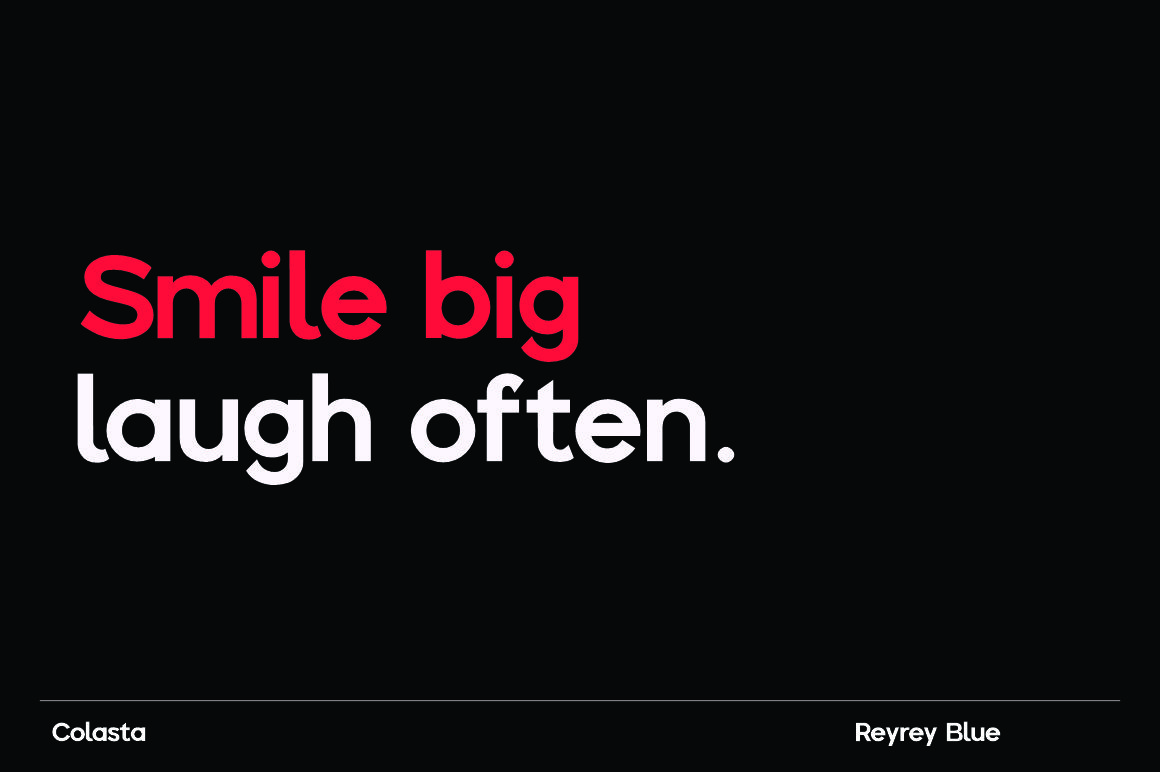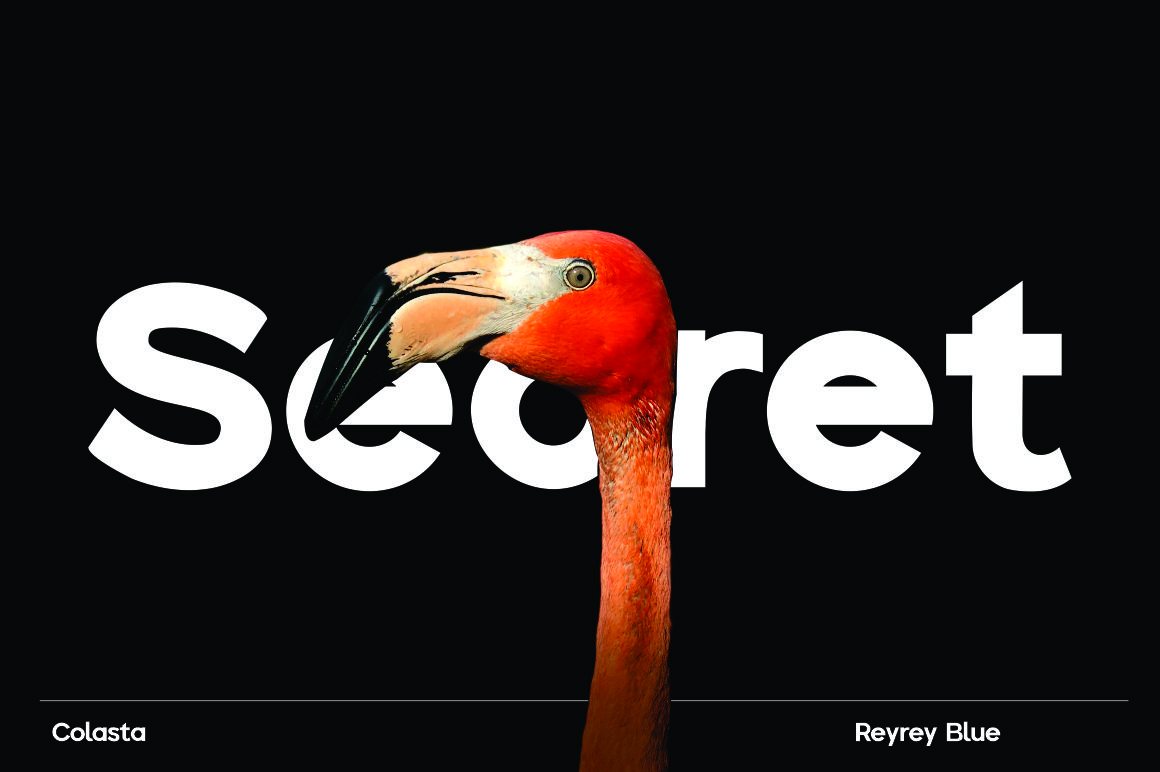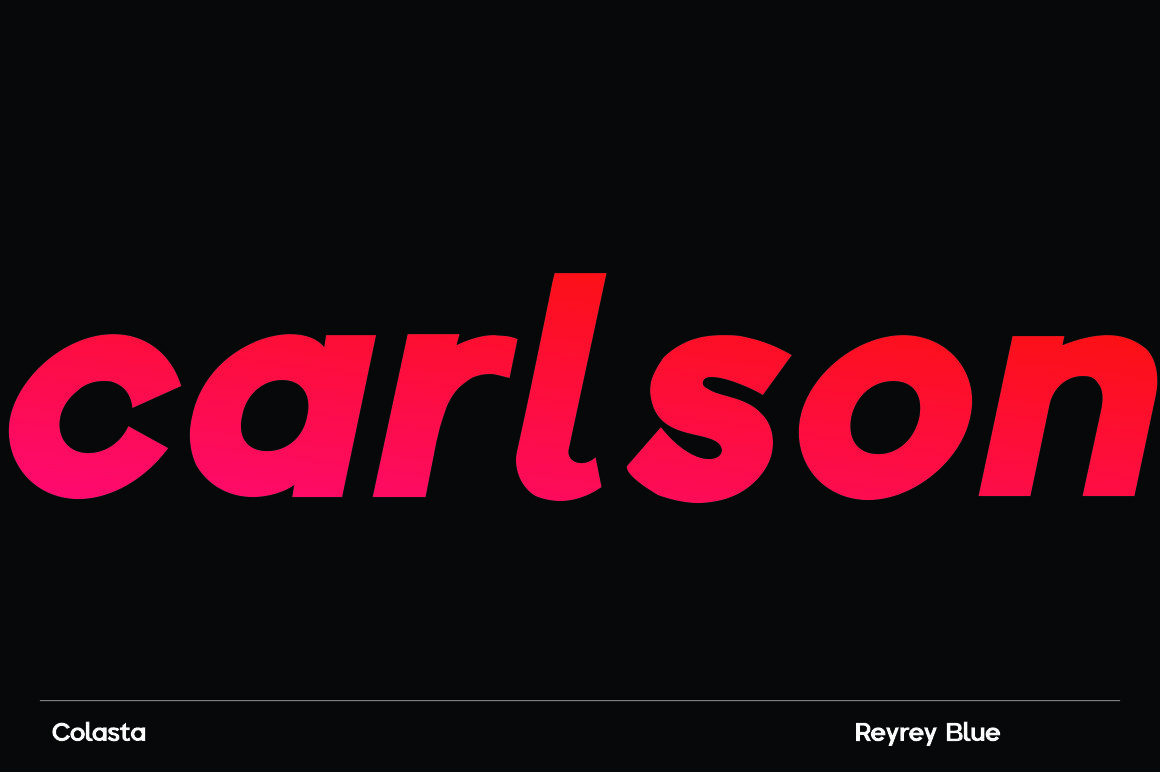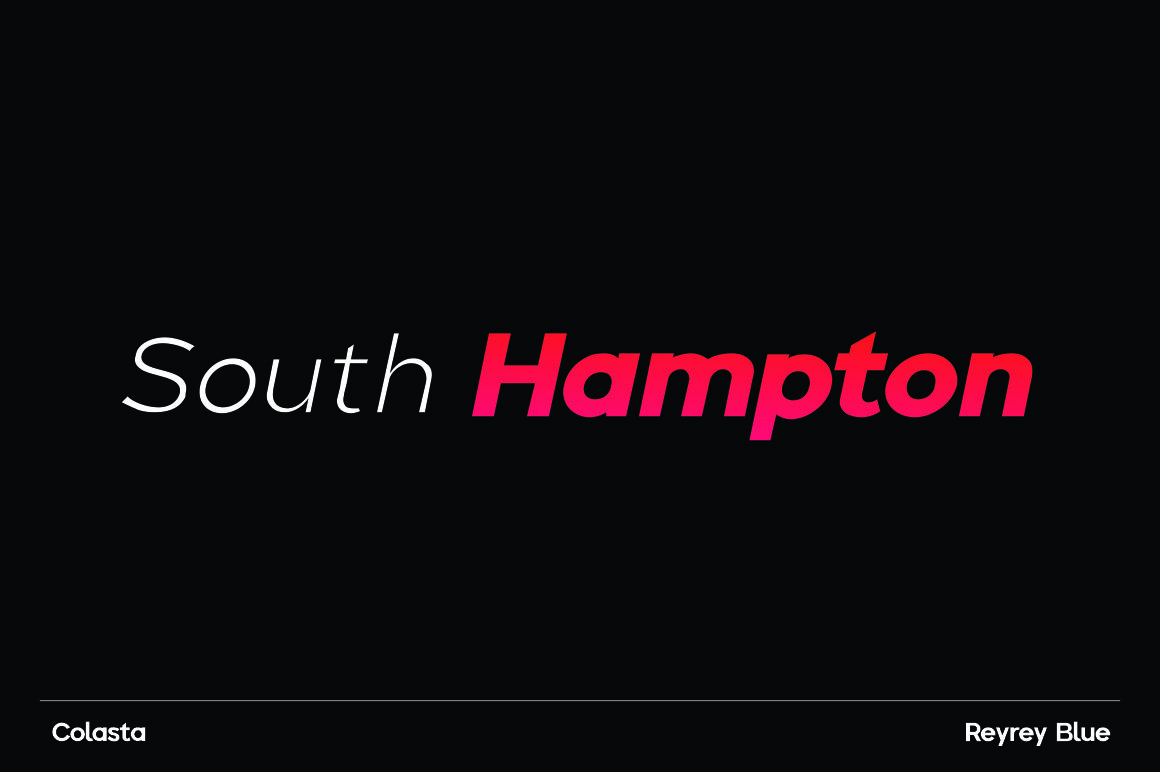
Colasta Sans Serif Font
It’s a new geometric, sans-serif font family that brings a fresh, modern look to any design. Colata comes in 10 styles, each containing small caps and glyph coverage for several languages. This font is very suitable as text with displays for various kinds of branding, advertisements, posters, banners, packaging, news headlines, magazines, websites, logo design, banners, social media design and of course you can use a lot more.